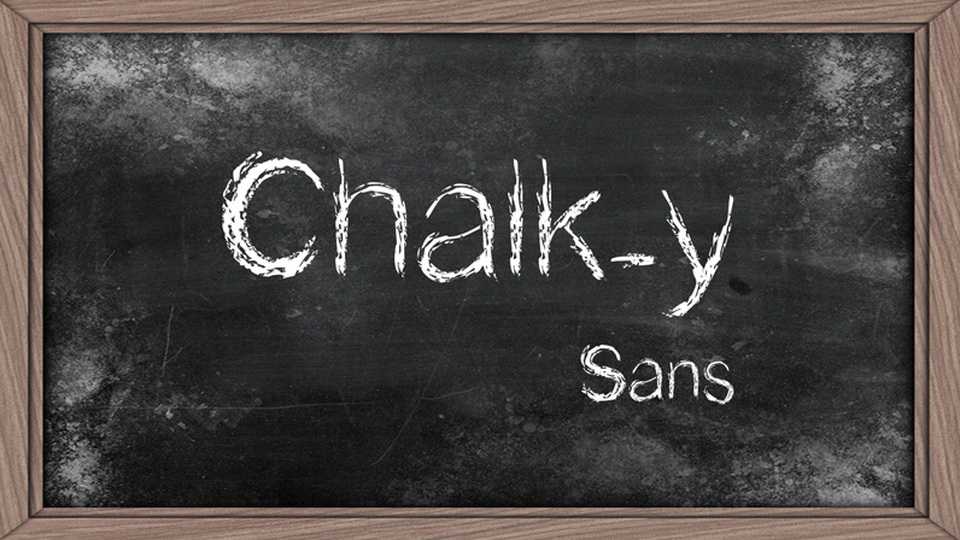
Chalk-y Sans Font › Fontesk
Download Chalk-y Sans font, a handwritten chalk typeface with a realistic textured look. Chalk-y Sans is perfect for any project related to school, restaurants, bars & pubs and many other.
Designer: Ştefancu Gabi